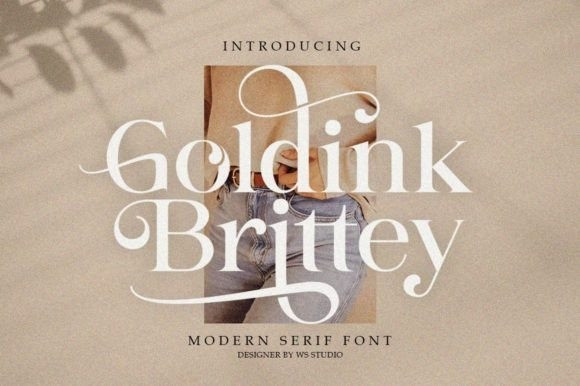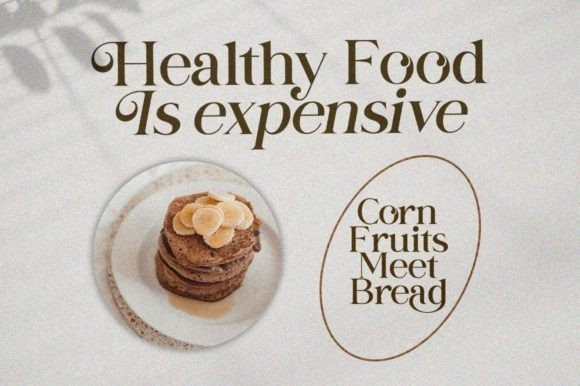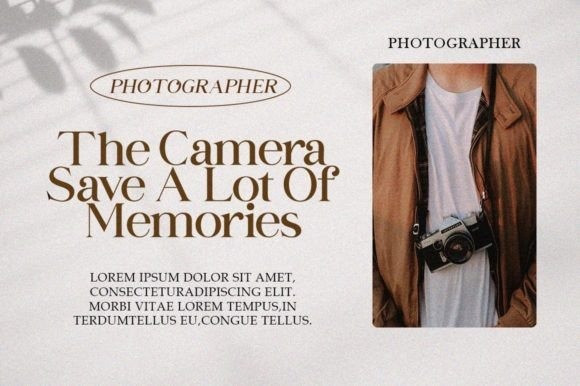
Goldink Brittey Font
Goldink Brittey is a bold, trendy and bold serif font. This font is PUA encoded which means you can access all the glyphs and sweeps easily!
Fall in love with its incredibly versatile style and use it to create spectacular designs!